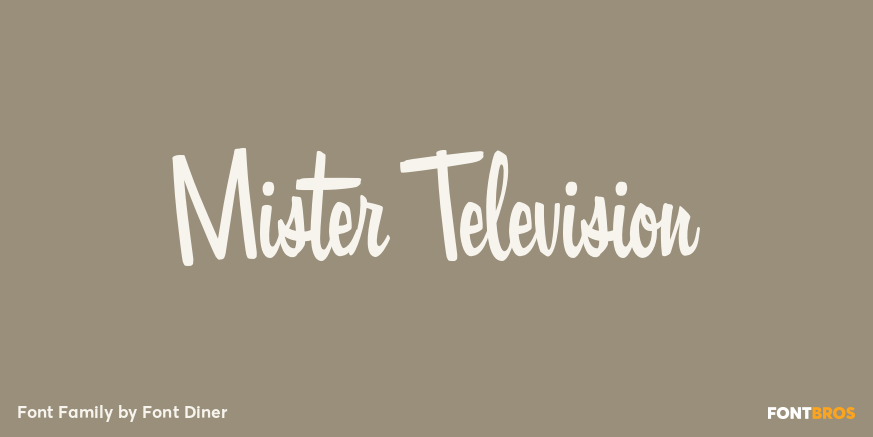
HomeFont BrosRetro (1936-1965)Mister Television Retro (1936-1965)Scripts: CasualWacky Mister Television FacebookXPinterestWhatsApp 1 of 1 About Mister Television It's BIG! It's FUN! It's full of personality and it's only on after the kiddos are in bed! It's Mister Television, the fabulous retro brush script sure to shine throughout the evening!  DOWNLOAD ON FONT BROSThis font is sold and delivered by Font Bros. Font Canyon may earn a commission if you buy through this link. People also explored Bangga Font Million Hopes Font Ethylene Font Alisse Font Hello Trick World Font Witch Night Font Farmhouse Font Rectoverso Script Font Hillya Font 324 0 TagsMister Television Font Previous articleSeryaNext articleRabbit On The Moon LEAVE A REPLY Cancel reply Comment: Please enter your comment! Name:* Please enter your name here Email:* You have entered an incorrect email address! Please enter your email address here Website: Save my name, email, and website in this browser for the next time I comment. Personal Use Free New System Personal Use Free Read more about this font Senza Bella Personal Use Free Read more about this font Eaglese Personal Use Free Read more about this font Propaniac Personal Use Free Read more about this font BLOG How to Install and Use Fonts on Windows, macOS, and Web Projects How to Install and Use Fonts on Windows, macOS, and Web Projects Fonts are a crucial part of design and branding. Whether you’re designing a... How to Cut Any Font on Cricut: Convert a Font to SVG (Free) To increase your work productivity, choose the most readable fonts. Transform Your Website: Elevate Your Typography with 7 Best Web Font Generators